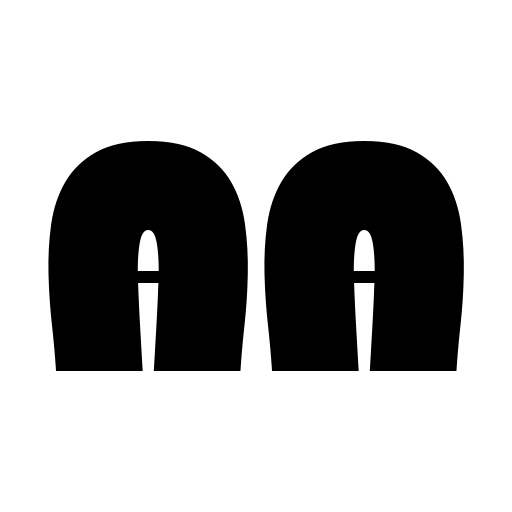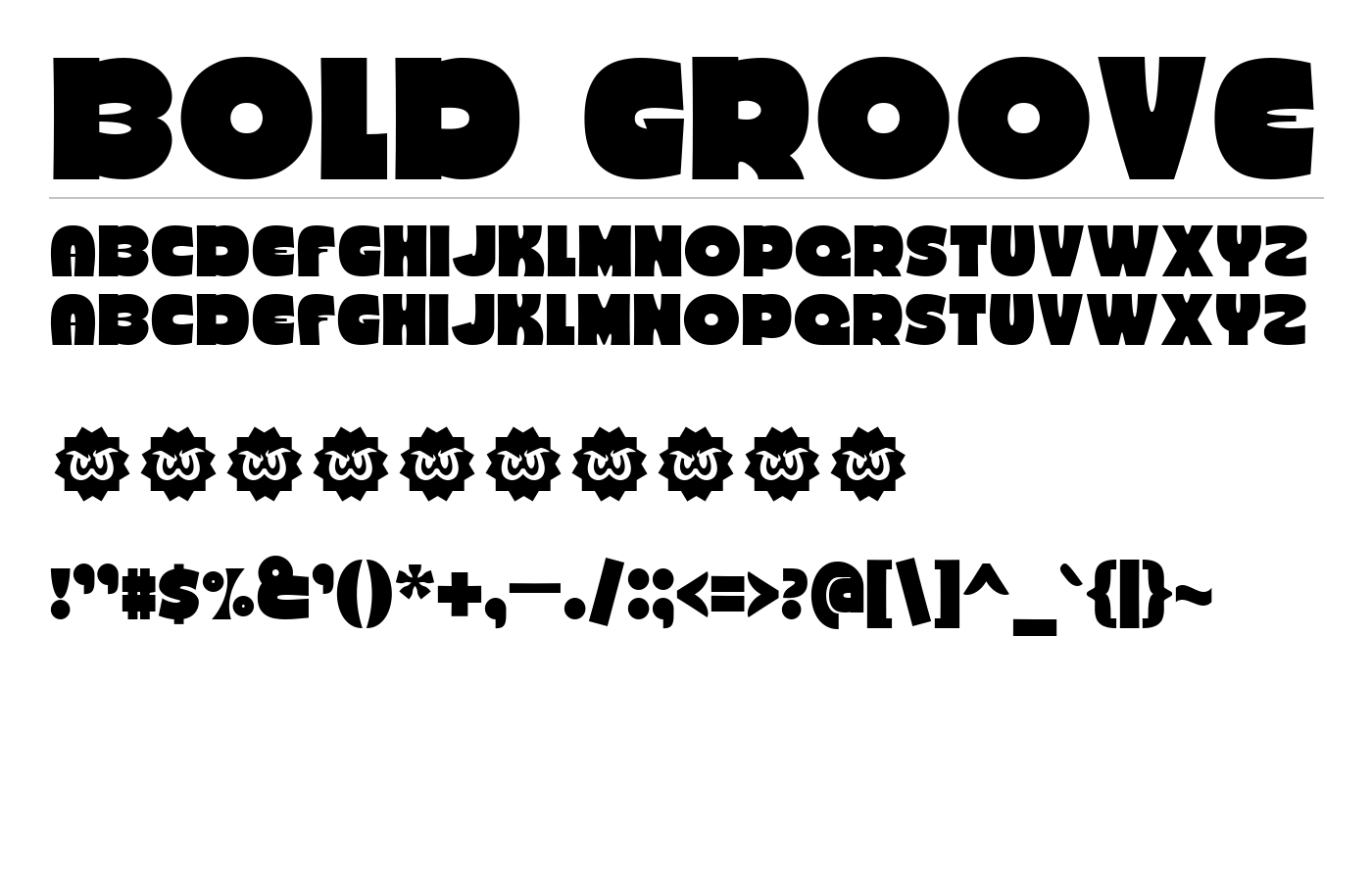
Bold Groove is a chunky, bold sans-serif display font with playful, rounded shapes and quirky cutouts that give it a lively, retro vibe. Its heavy weight and squarish, irregular forms make it perfect for eye-catching headlines, logos, or posters that want to convey fun, energy, and a vintage groove feel. This font stands out in branding and creative projects where a bold, friendly personality is key.
Bold Groove Font
About Bold Groove Font